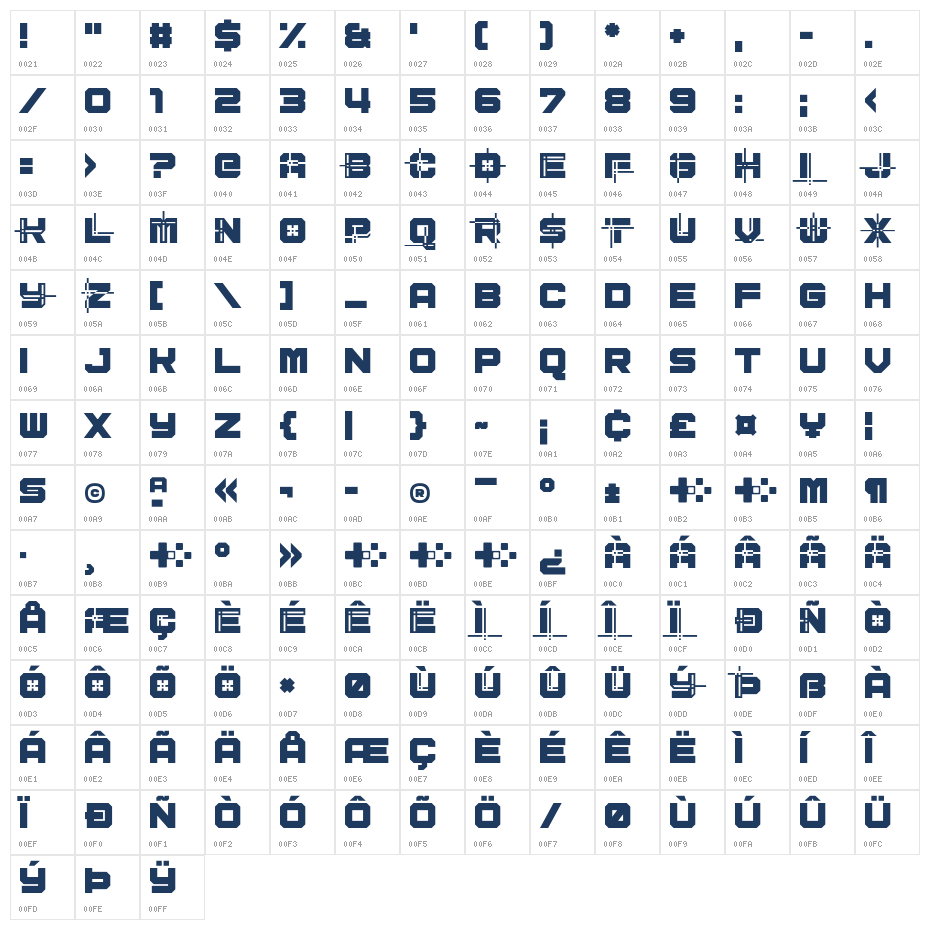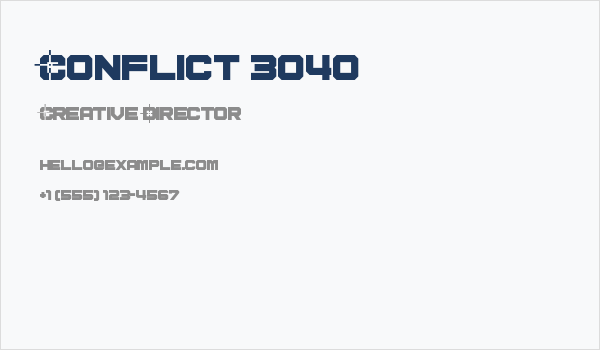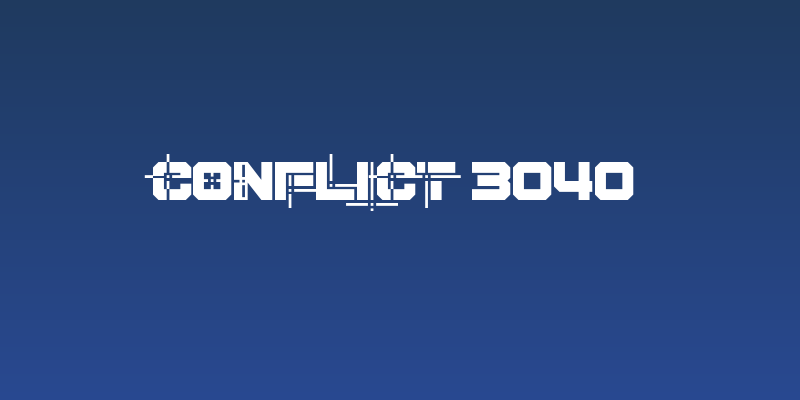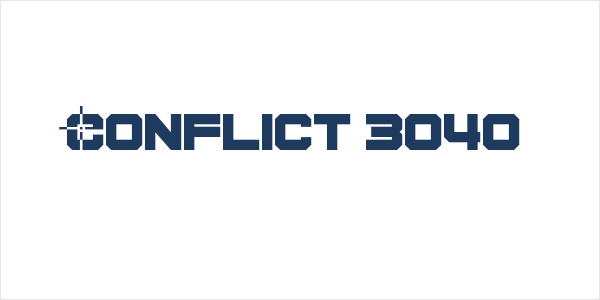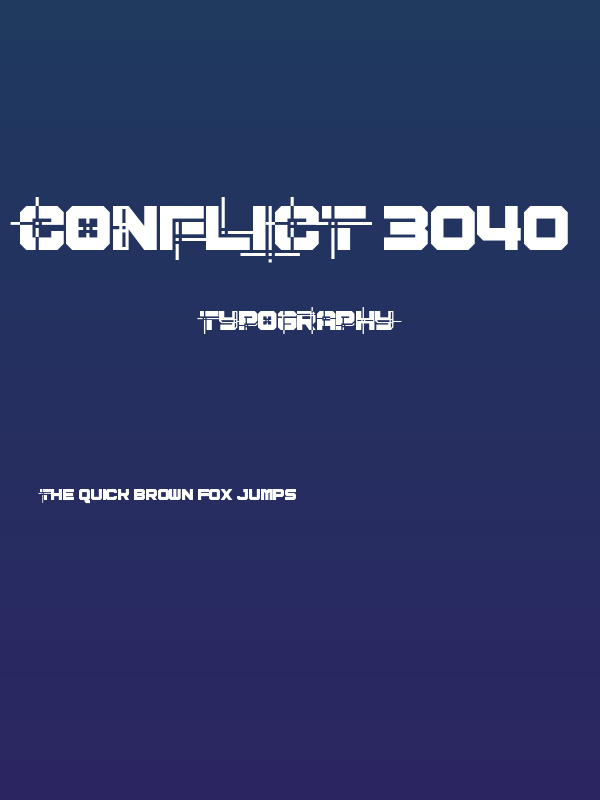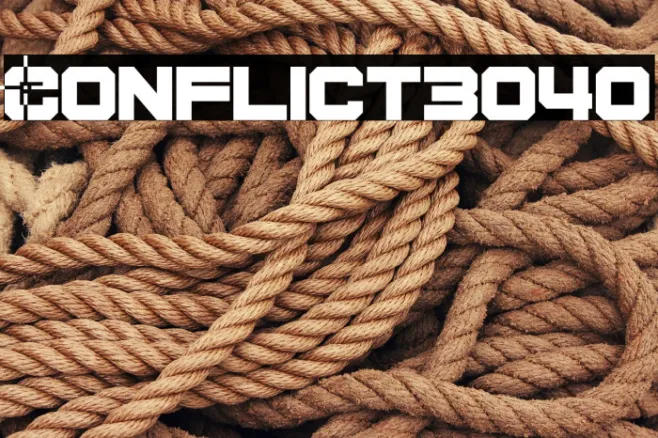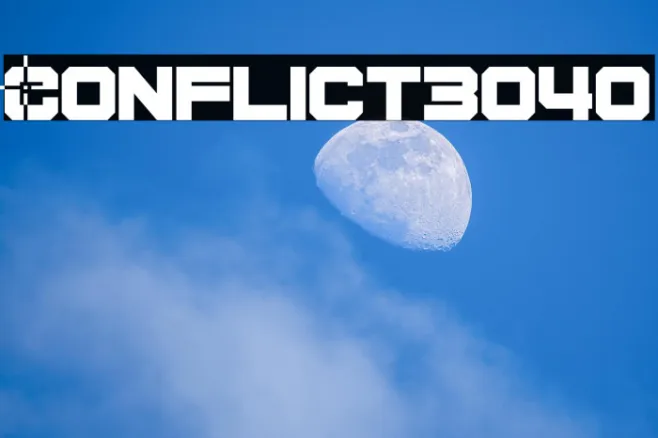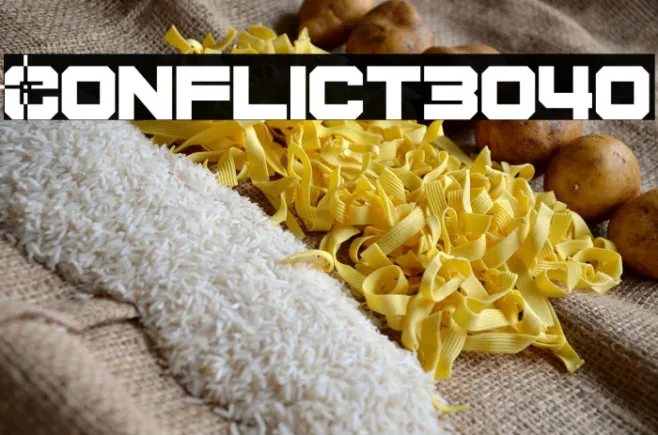
Conflict 3040 Font
Conflict 3040 Description
A pixelated, blocky, digital-style font with a grid-like structure, featuring sharp edges and uniform stroke widths.
| Overall Style | Retro, Digital, Pixel Art |
| Use Case | Headlines, Logos, Digital displays, Video game interfaces |